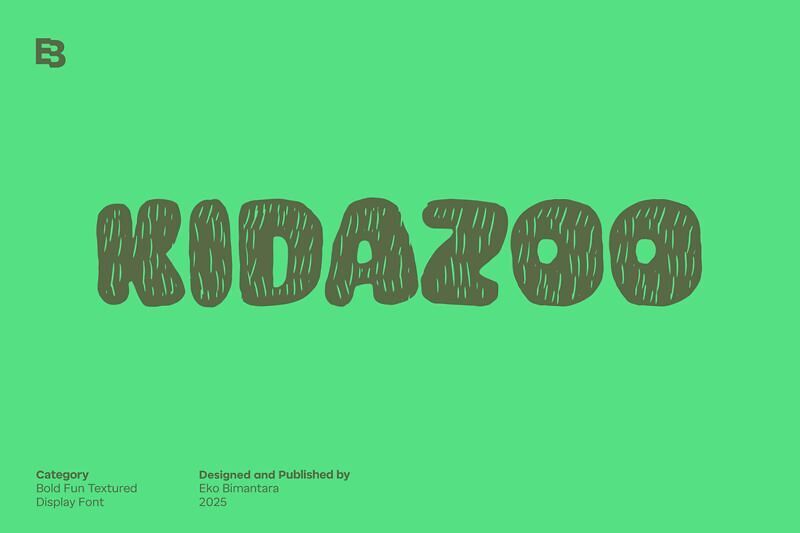
Kidazoo Font
Kidazoo is a bold, playful display font designed by Eko Bimantara. Featuring chunky, hand-drawn letters with lively, scratch-like textures, it evokes the energy of a kids’ adventure park or a playful animal-themed world.
Its textured strokes add a dynamic, tactile quality, making it ideal for children’s books, party invitations, toy packaging, and kid-centric branding.